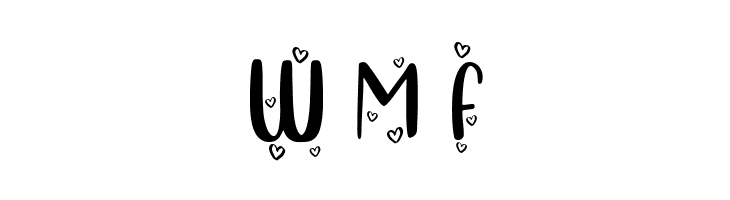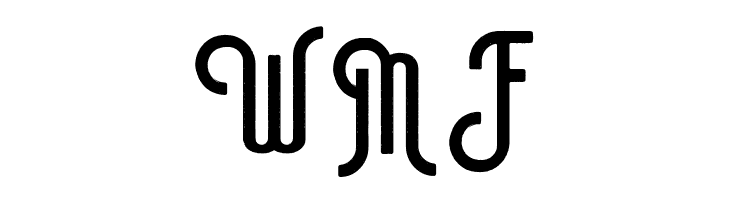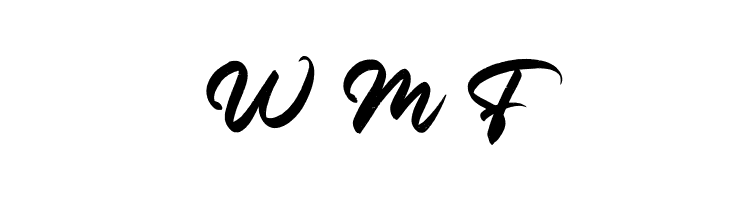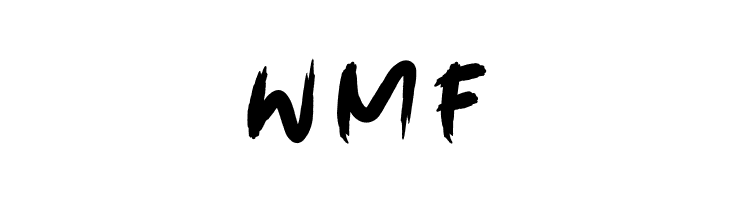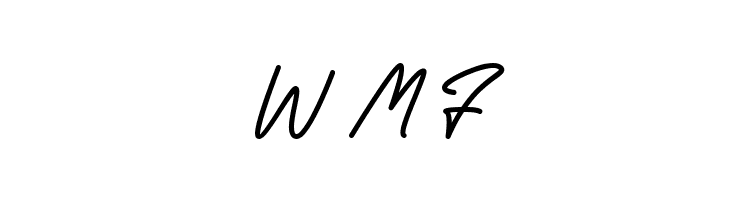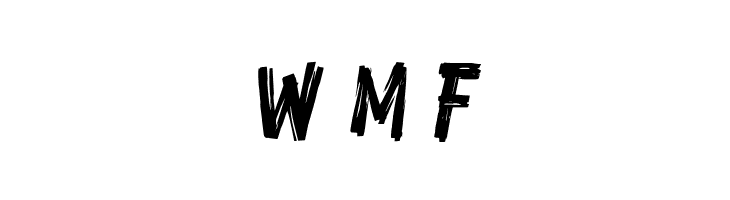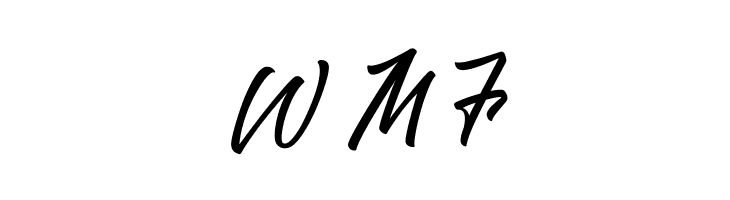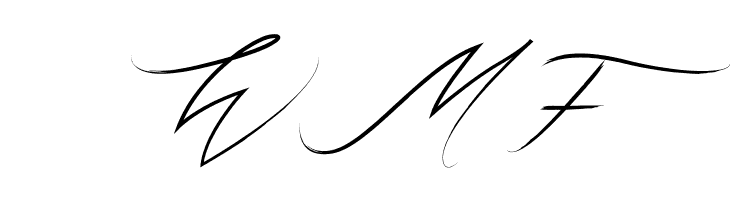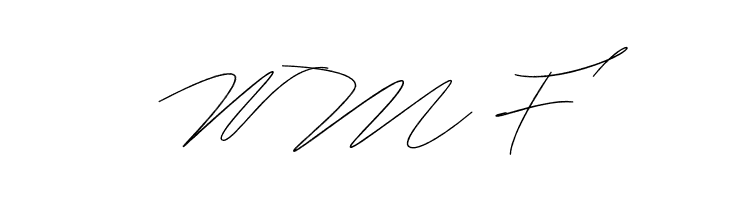
A playful, heart-accented font with bold, rounded characters and a hand-drawn style.
A decorative and modern font with bold, artistic strokes and intricate design.
A bold and expressive script font with a handwritten style.
A bold, brush-style font with dynamic and expressive strokes.
A flowing, cursive script font with interconnected letters and smooth strokes.
A bold, hand-painted style font with rough, textured edges and dynamic strokes.
A bold, flowing script font with dynamic, interconnected strokes.
An elegant, flowing script font with dynamic, cursive letterforms.
A fluid and elegant script font with a modern calligraphic style.
A bold, hand-drawn style font with a comic book flair.